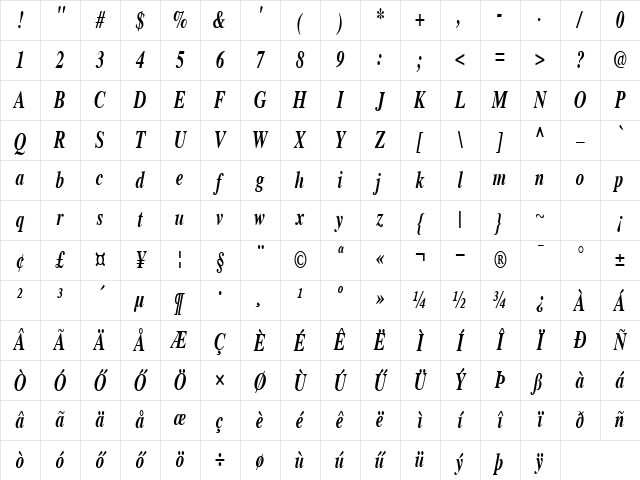
HTimesCond72 Bold Italic
Complete HTimesCond72 Bold Italic glyph index. Displaying only characters natively supported by HTimesCond72 Bold Italic font.
Design Context for HTimesCond72
HTimesCond72 is a composed and adaptable typeface that performs quietly and consistently across a wide range of design contexts. The slanted form adds forward momentum and visual energy. Its bold stroke weight gives it real presence on the page. Its narrow stance lets it pack a punch even in space-constrained designs.
Pro Tip: Use HTimesCond72 for emphasis, pull quotes, and subheadings where its slanted energy can add rhythm to the layout.